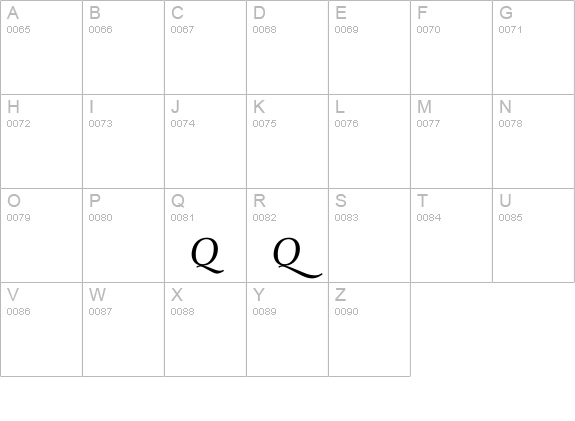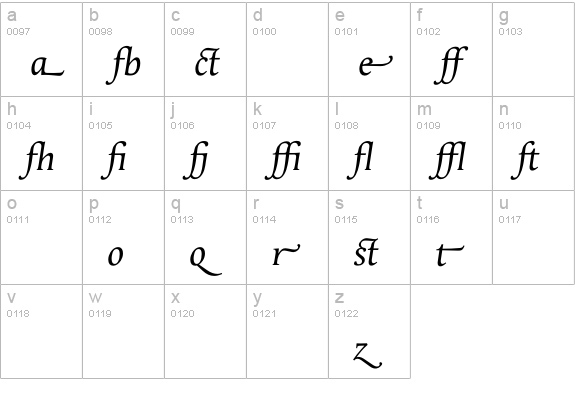
ApollineAlternate-Italic Font Details
ApollineAlternate-Italic is a distinctive, italic variant in the ApollineAlternate typeface family \xE2\x80\x94 well suited to design and typography projects.
ApollineAlternate-Italic is a captivating and elegant font that exudes sophistication and style. With its unique italic design, this typeface adds a touch of flair to any project or design. The slanted nature of the letters creates a sense of movement and dynamism, making it perfect for conveying a sense of energy and creativity. This font is versatile and can be used for a wide range of purposes, from branding and advertising to invitations and social media graphics. Its sleek and modern aesthetic makes it a popular choice for those looking to make a statement with their typography. The best part? ApollineAlternate-Italic is completely free to download at FontsMarket.com. This means that you can access this beautiful font without any cost, making it accessible to designers and creatives of all levels. Don't miss out on the opportunity to elevate your designs with ApollineAlternate-Italic - download it today and let your creativity shine!